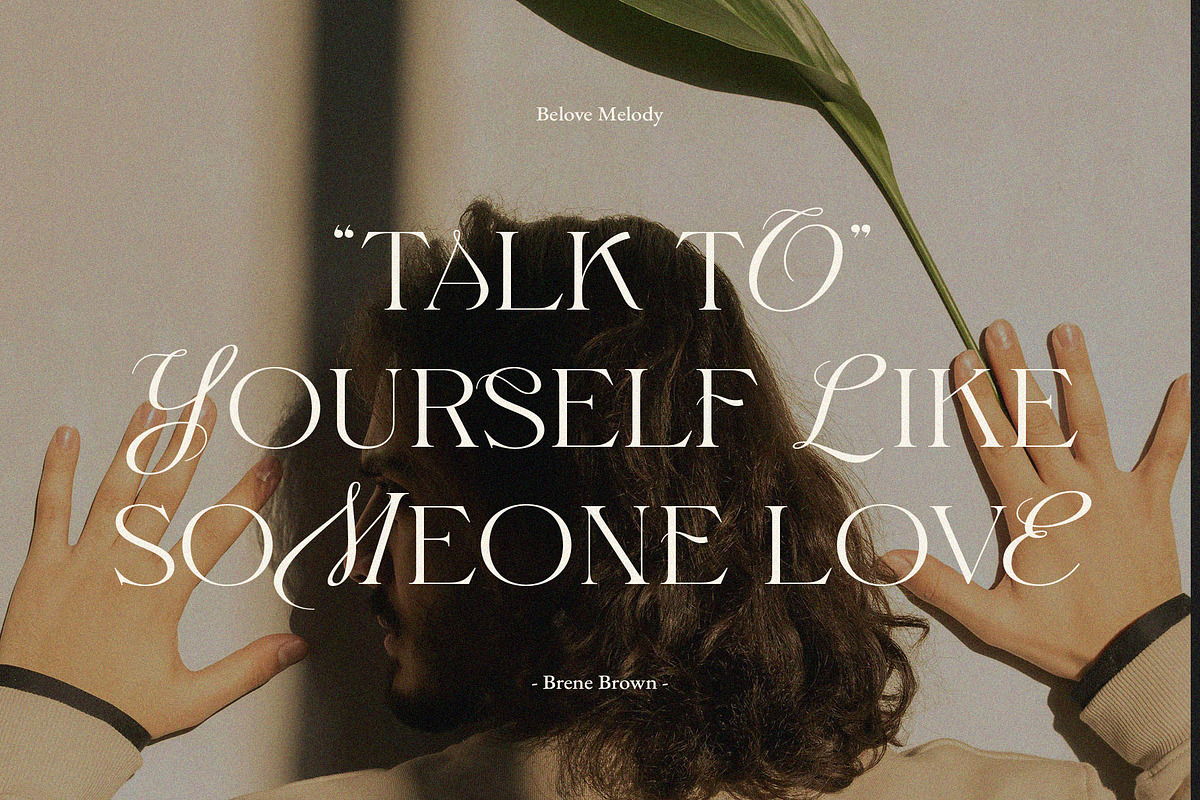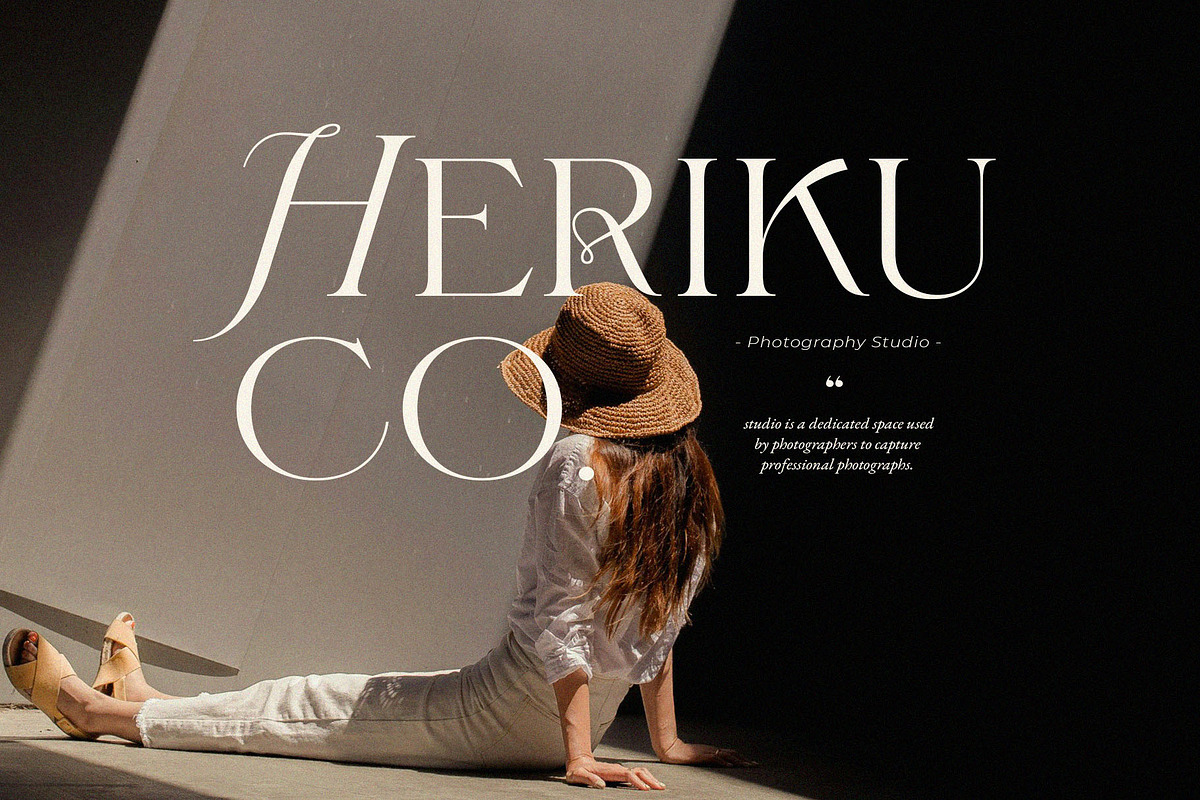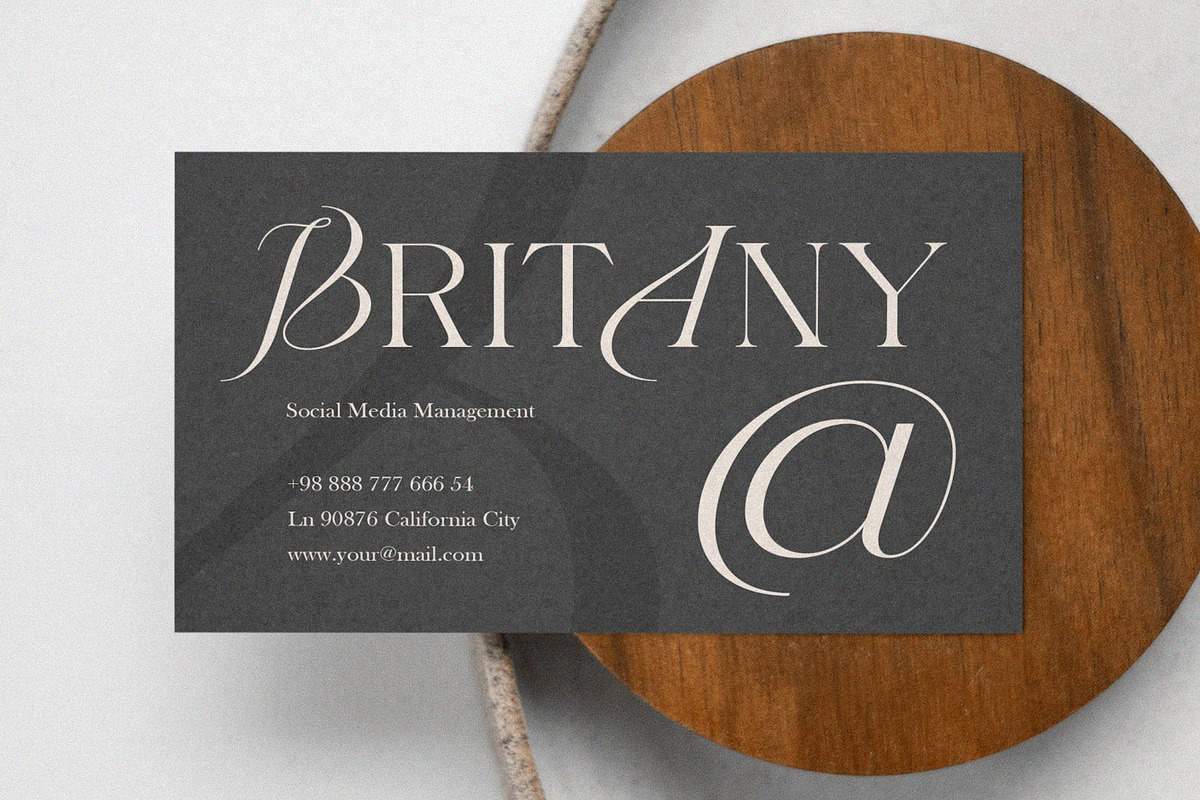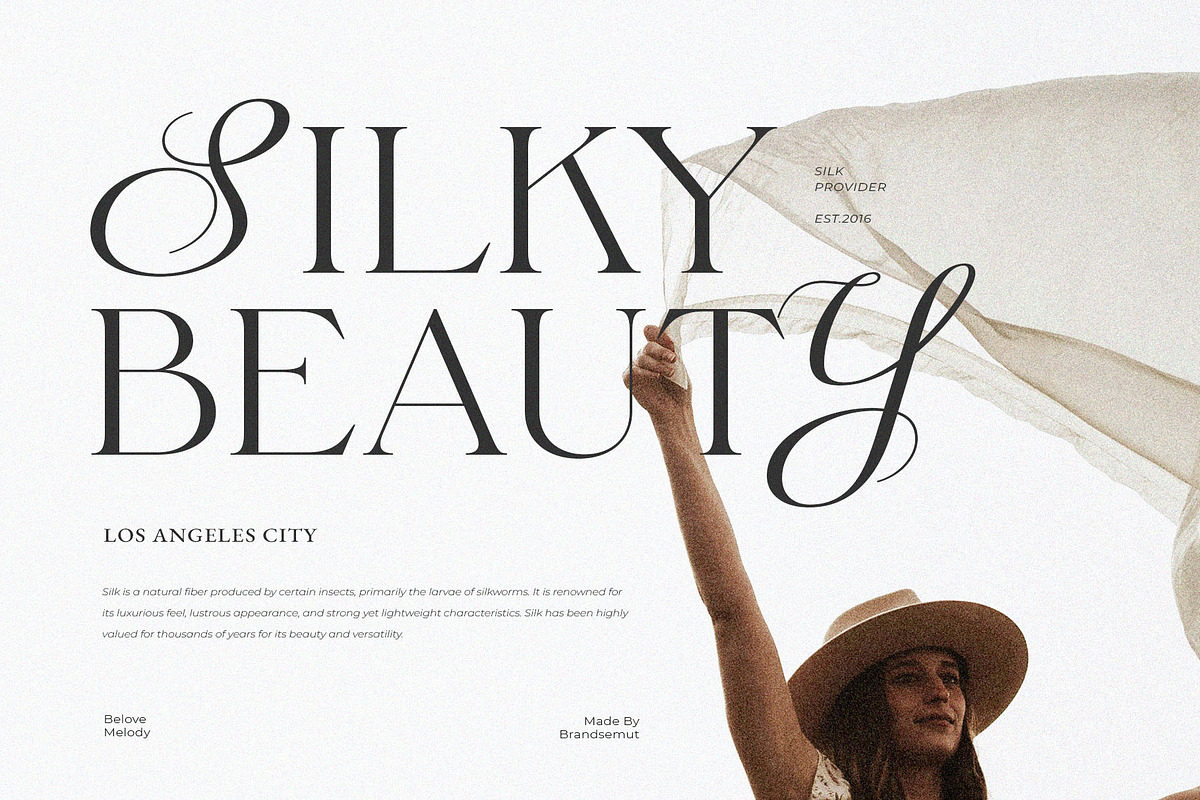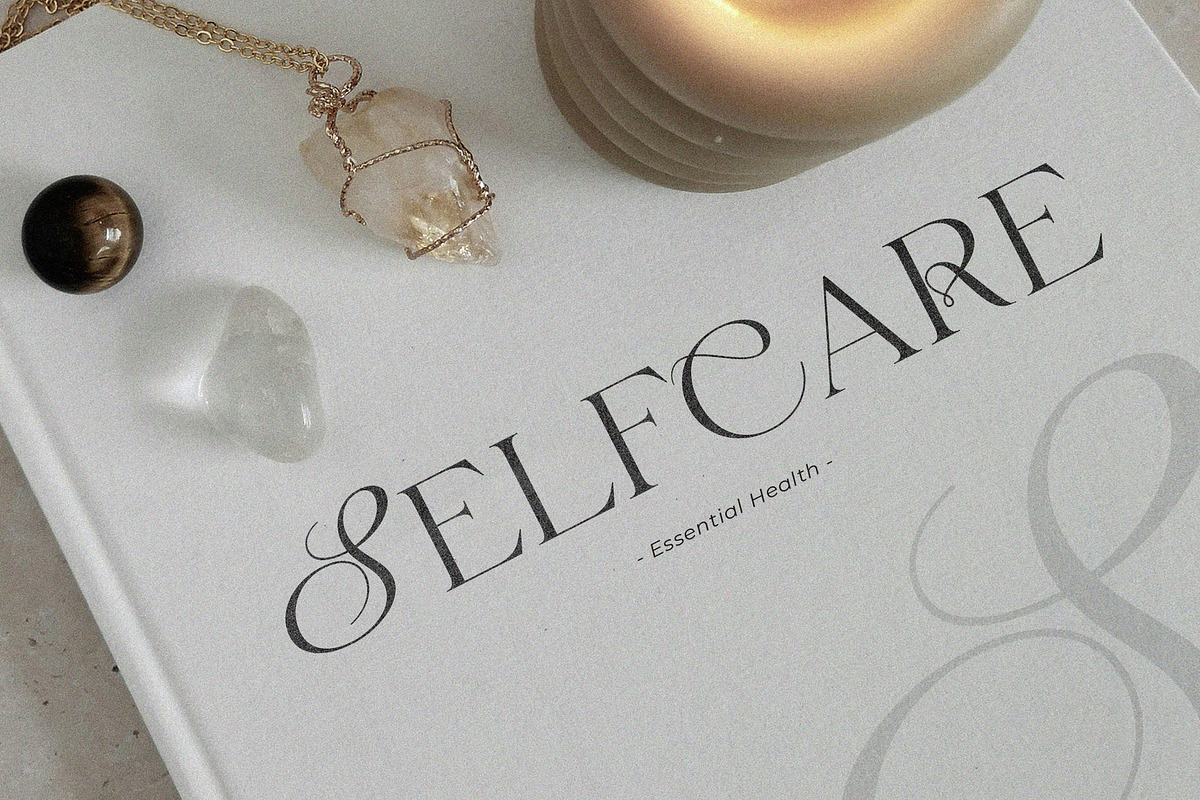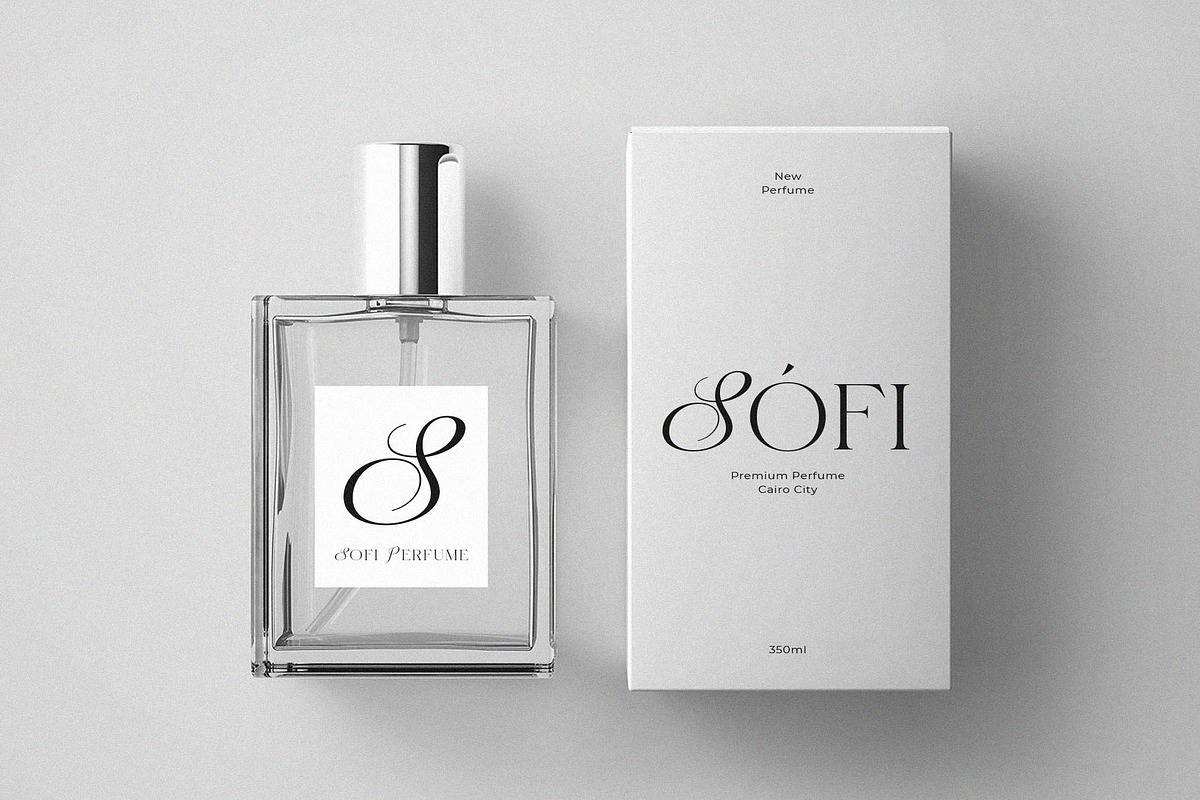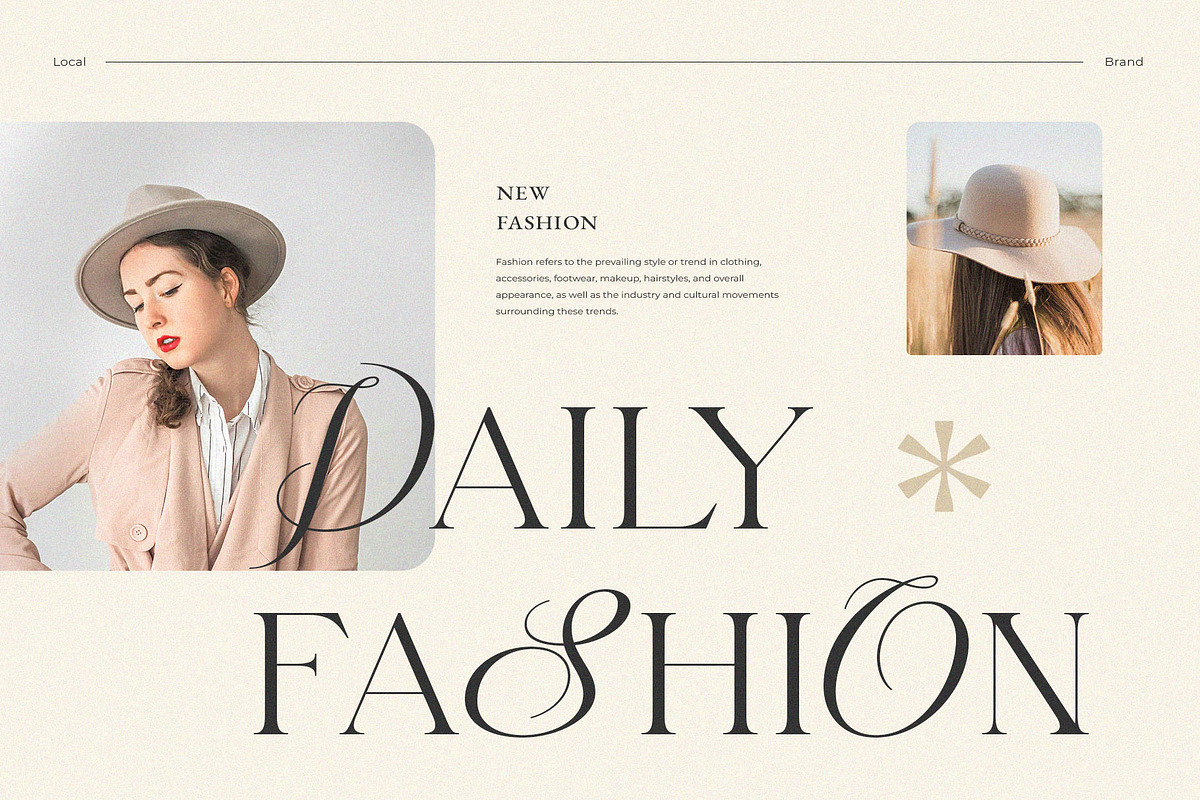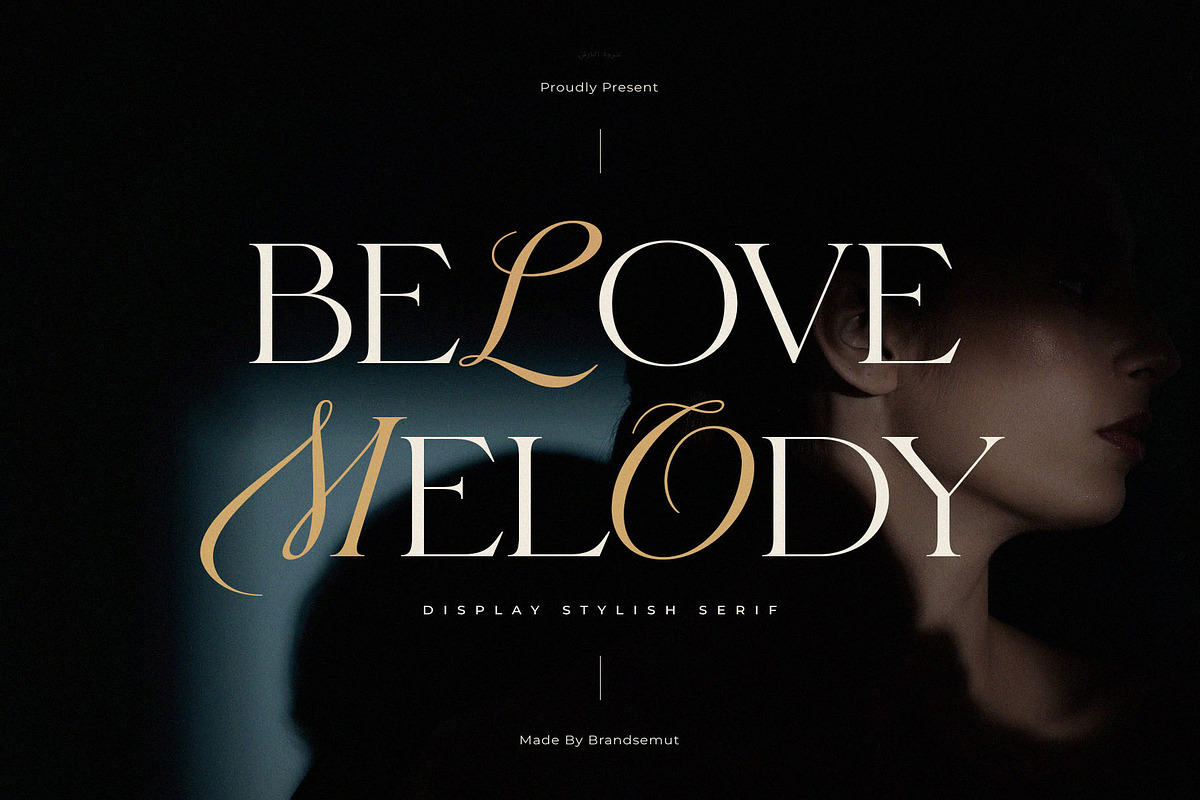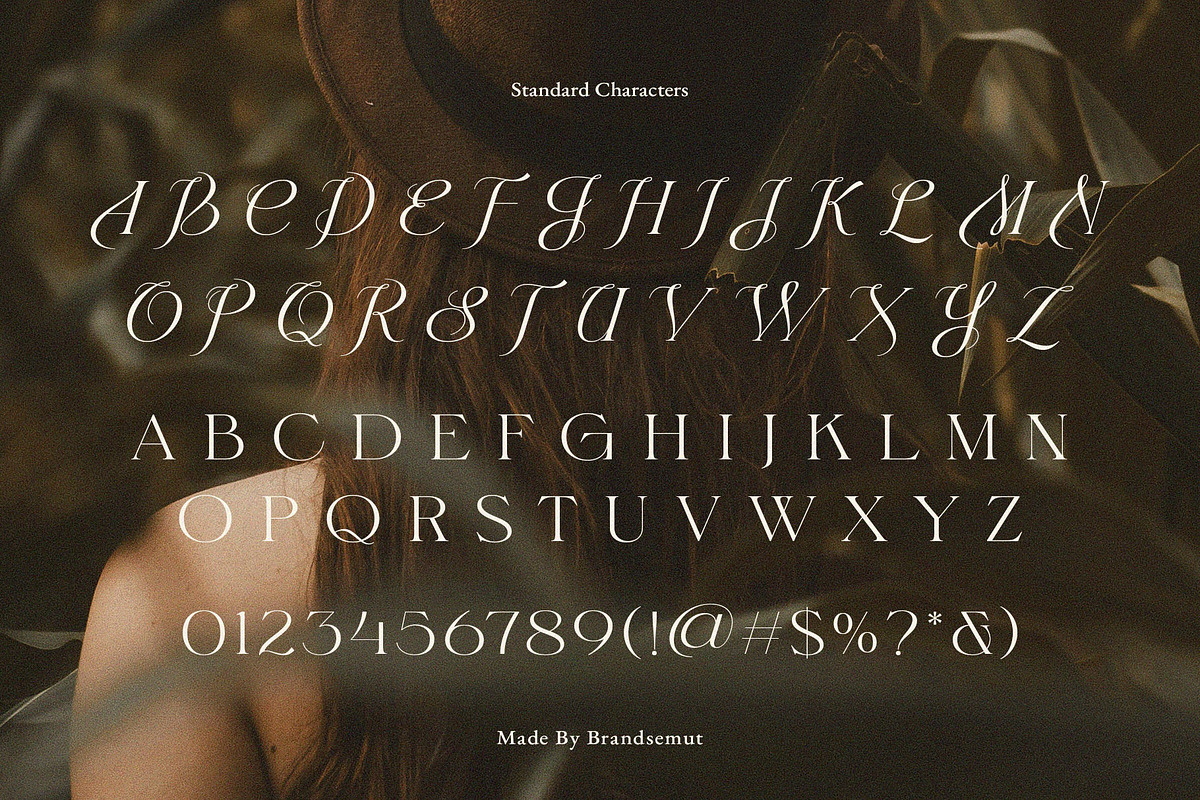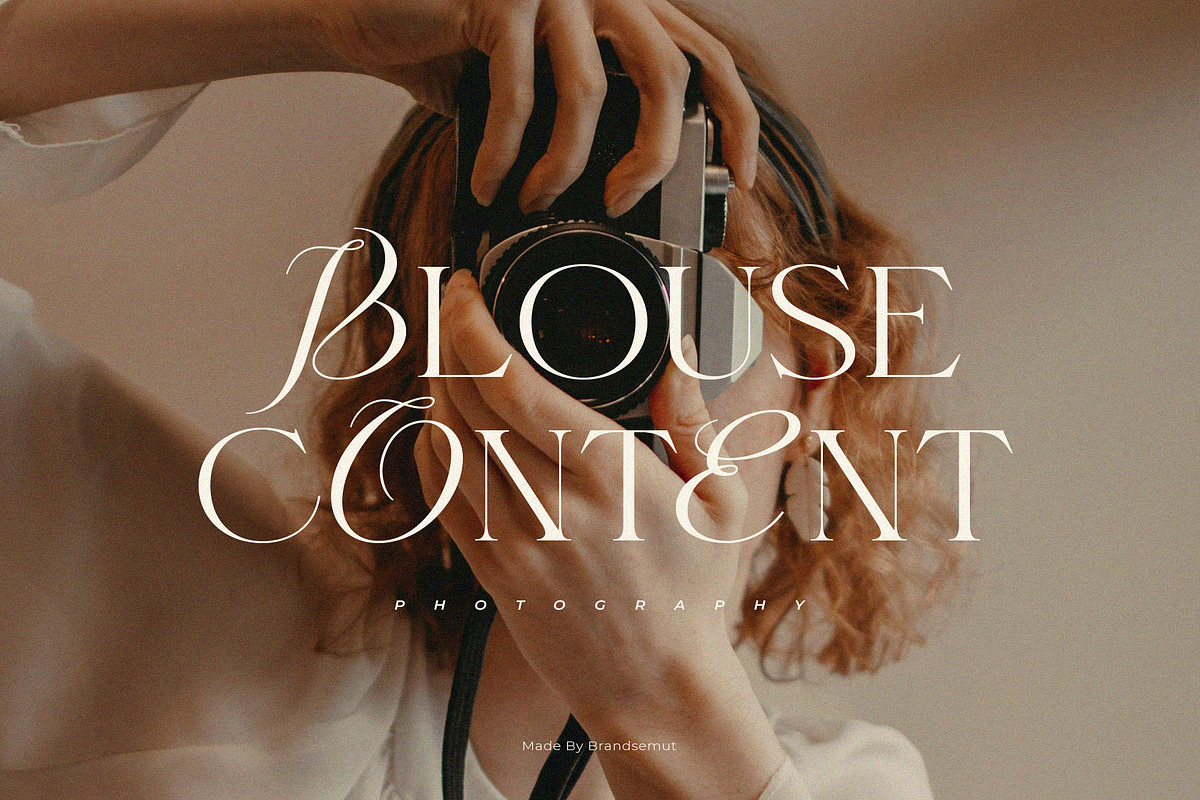
Belove Melody Display Stylish Serif
Introducing Belove Melody Display Stylish Serif. Belove Melody is a elegant, classy and modern display serif, best used as a display for headings, logos, branding, magazines, product packaging and invitations. Belove Melody equipped with many Alternates and come with clean lines and smooth curves give any project an extra touch of class.